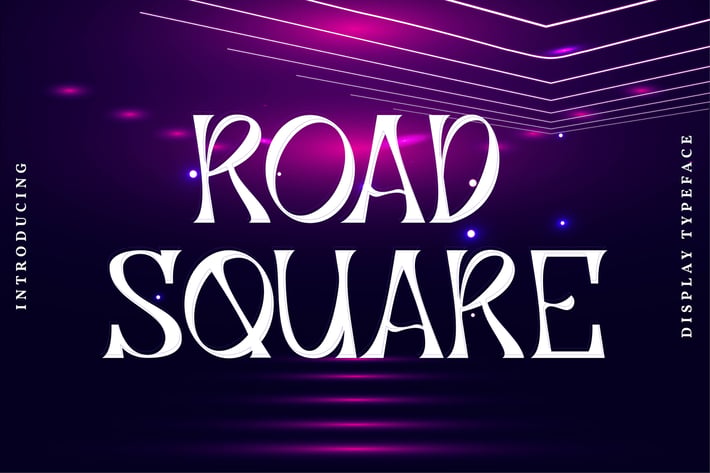
Roadsquare | Display Typeface Font
Roadsquare | Display Typeface Font with a calligraphy style, So beautiful on invitation like greeting cards, branding materials, business cards, quotes, posters, and more!